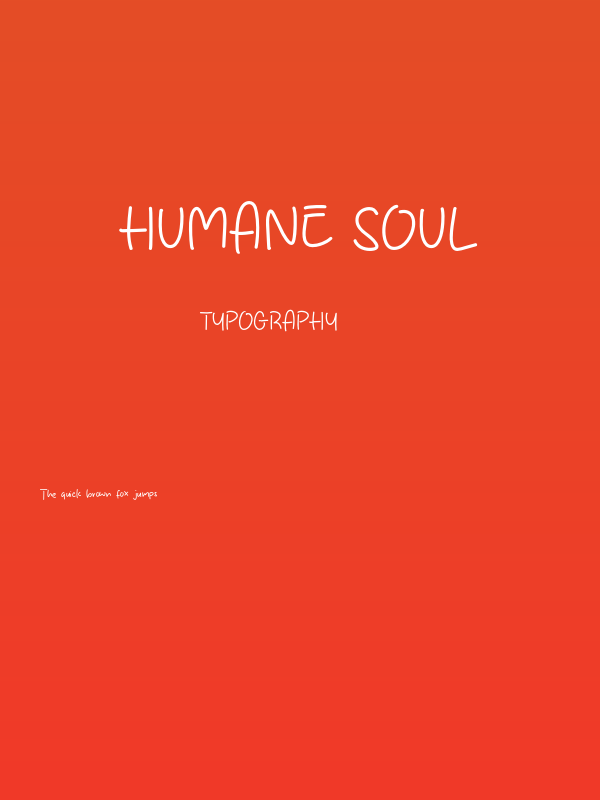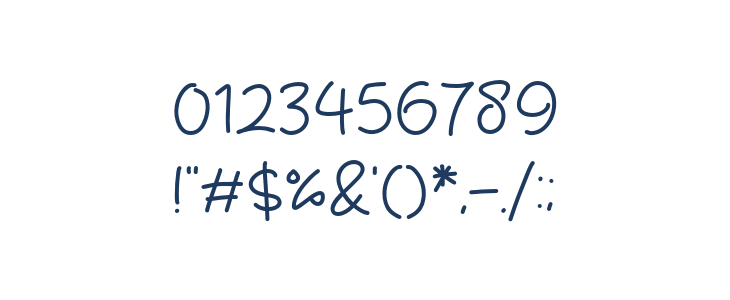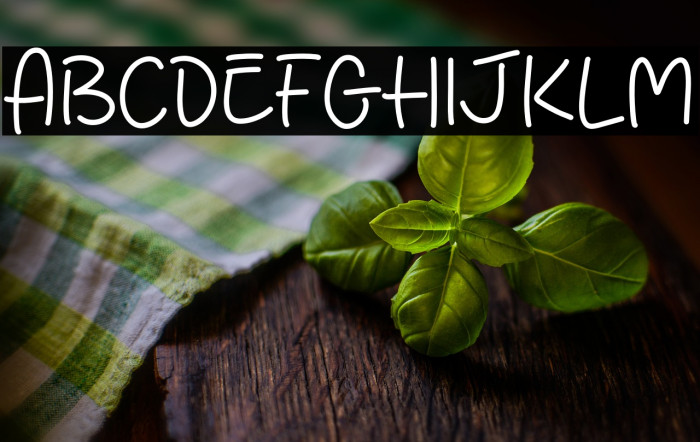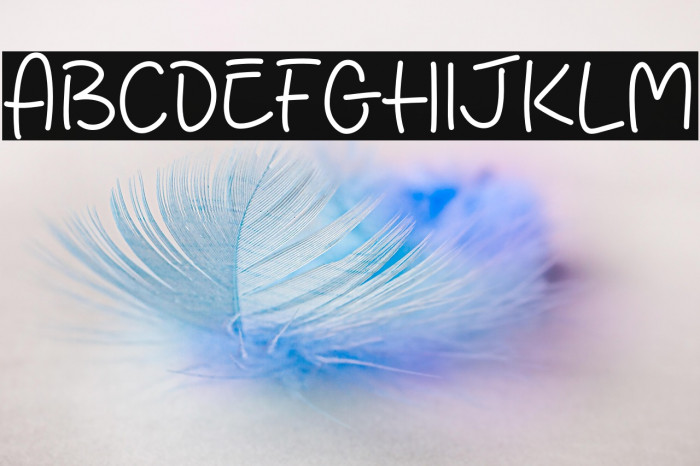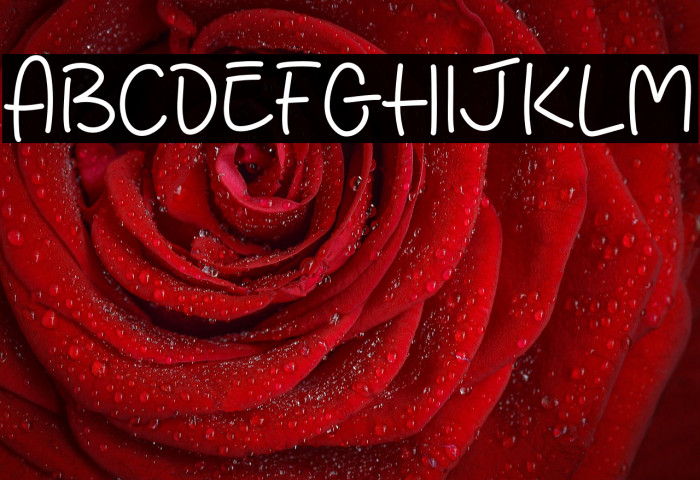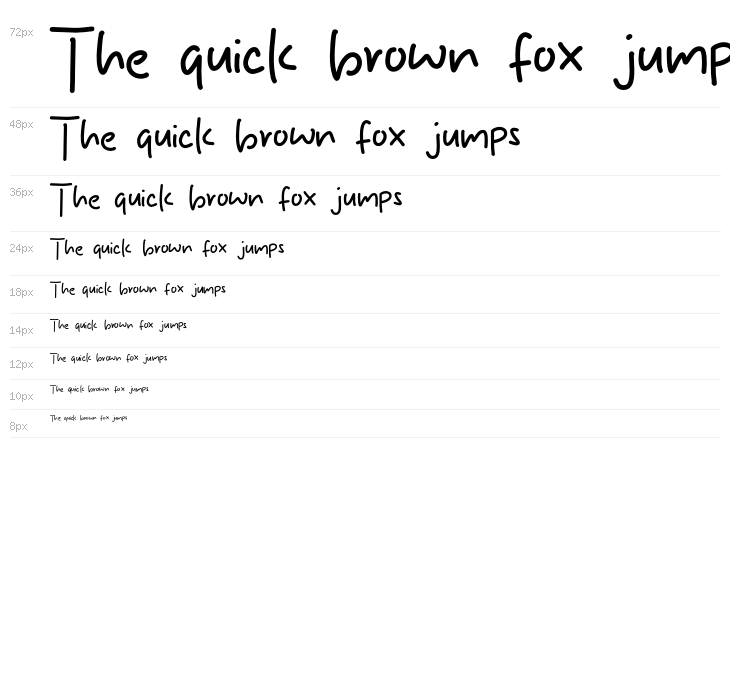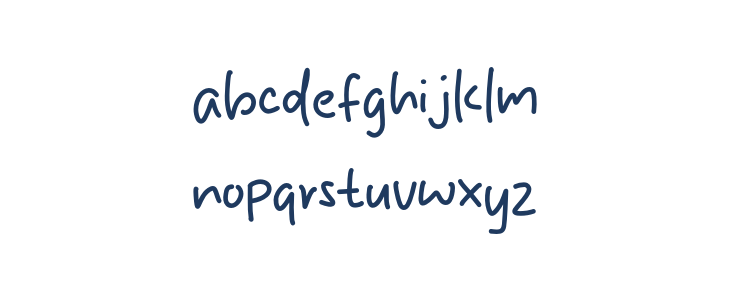
Humane Soul Font
Humane Soul Description
This font exudes a playful and casual handwritten style, characterized by its smooth, rounded strokes and slightly irregular letterforms that mimic natural handwriting. The uppercase and lowercase letters maintain a consistent flow, with a slight tilt that adds to its informal charm. The numerals and special characters are crafted with the same whimsical touch, ensuring a cohesive look across all text elements. This font is perfect for projects that require a personal, friendly touch, such as greeting cards, invitations, or children's book illustrations. Its legibility and approachable style make it versatile for various creative applications.
| Use Case | Headlines, Logos, Informal text |
| Proposed Projects | Greeting cards, invitations, children's books, personal branding. |